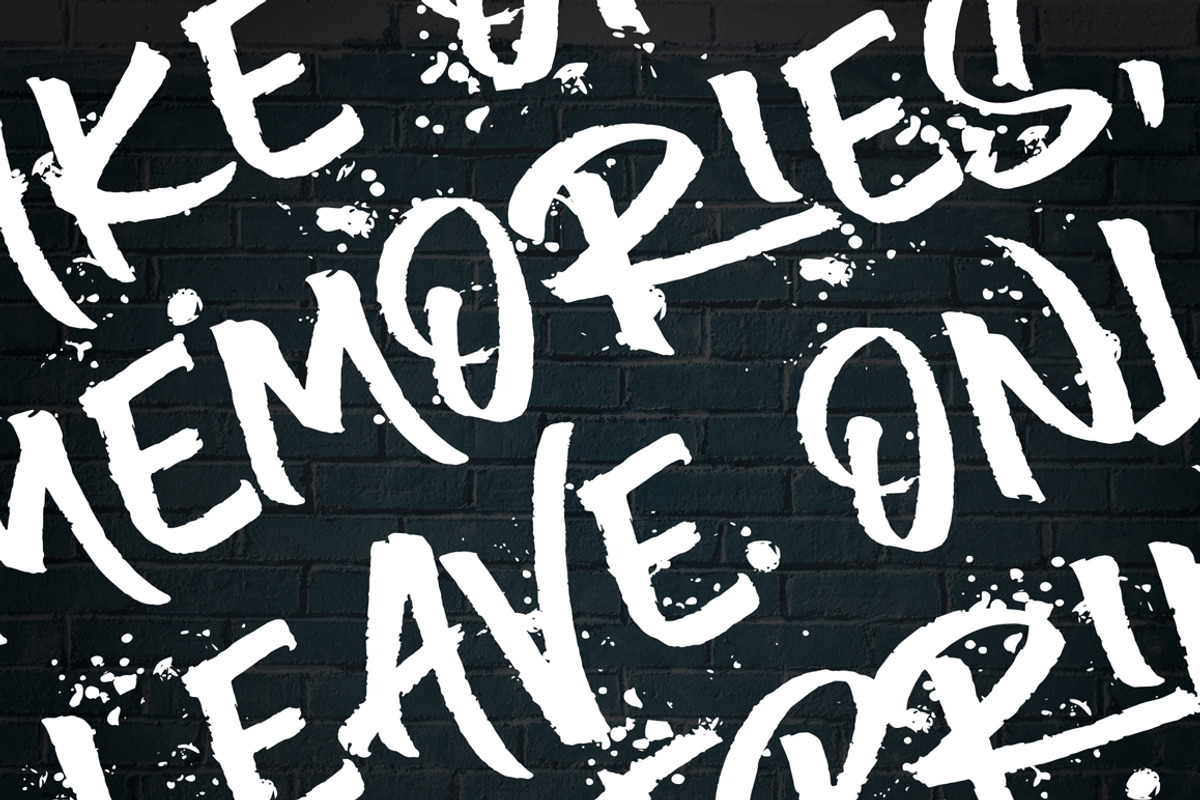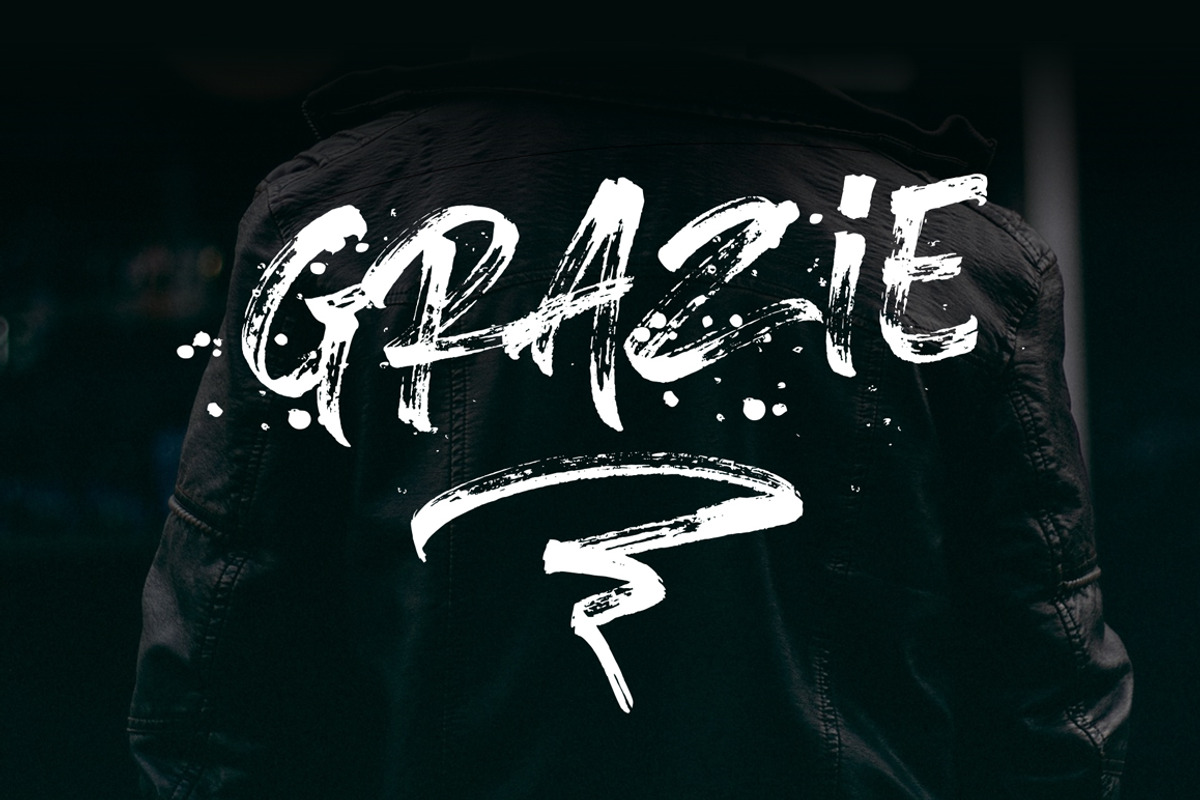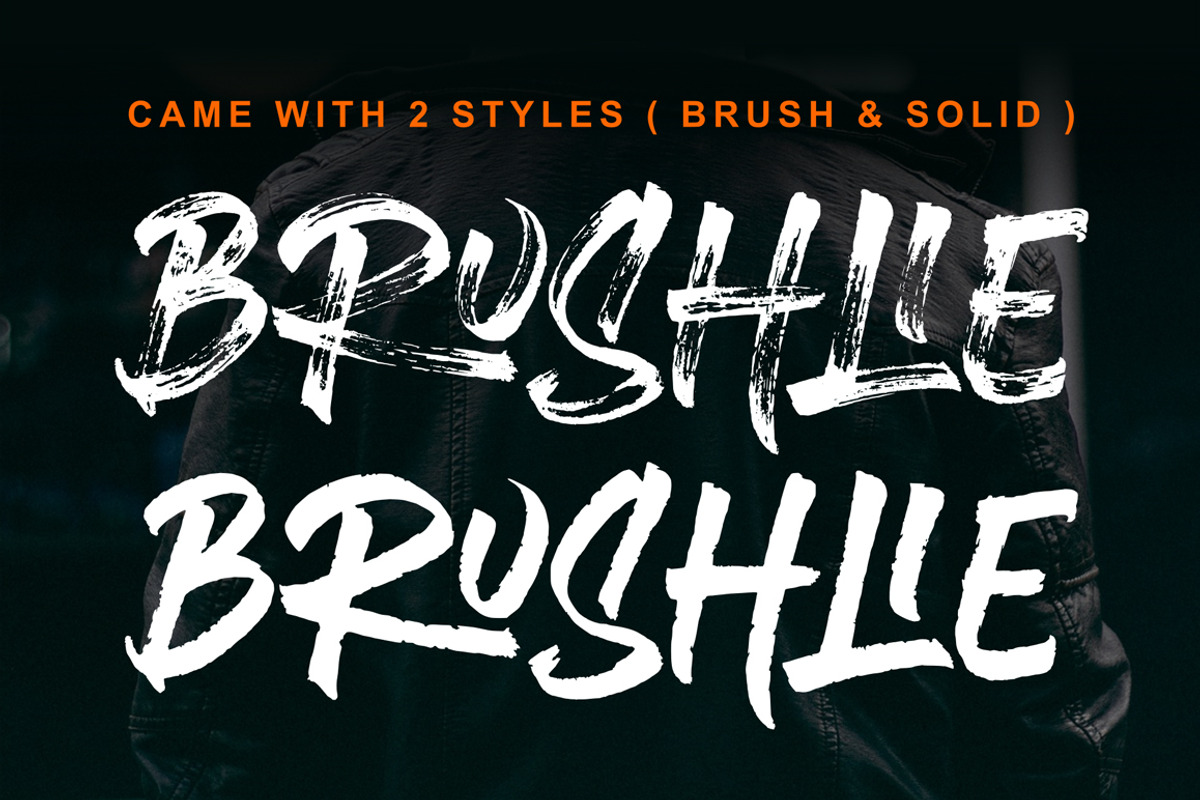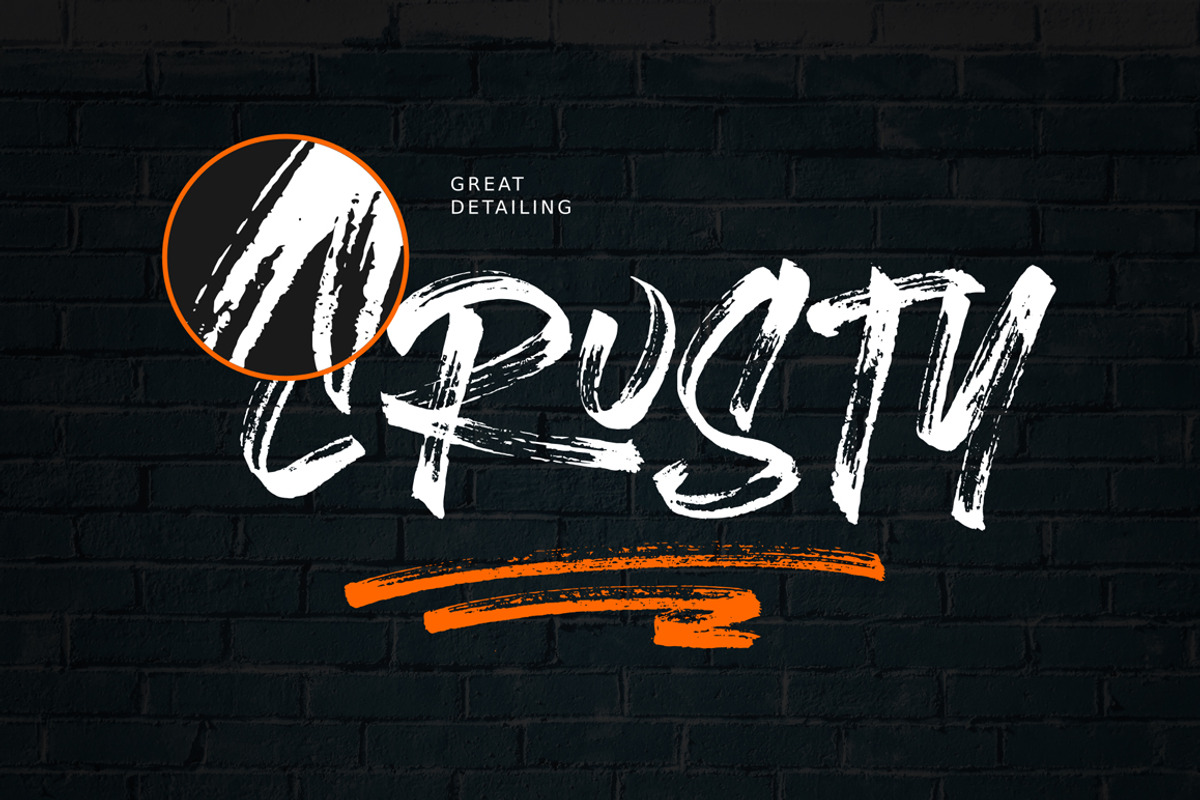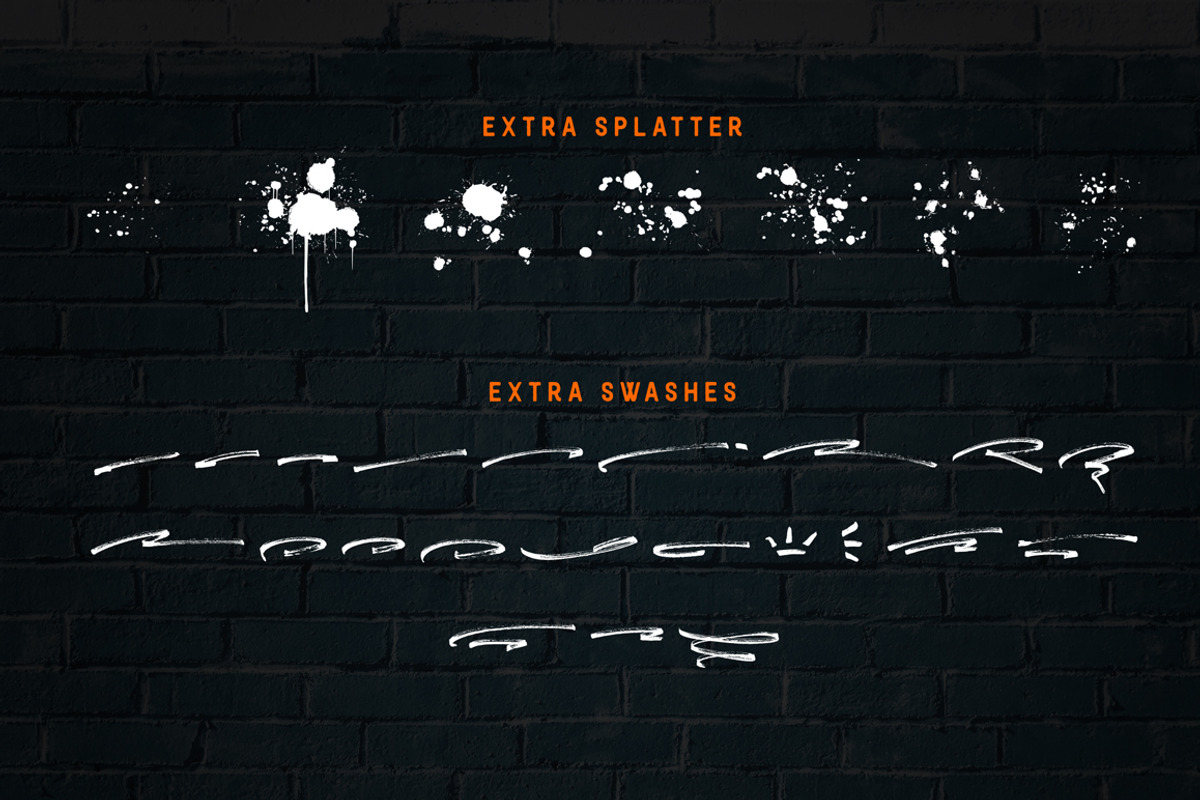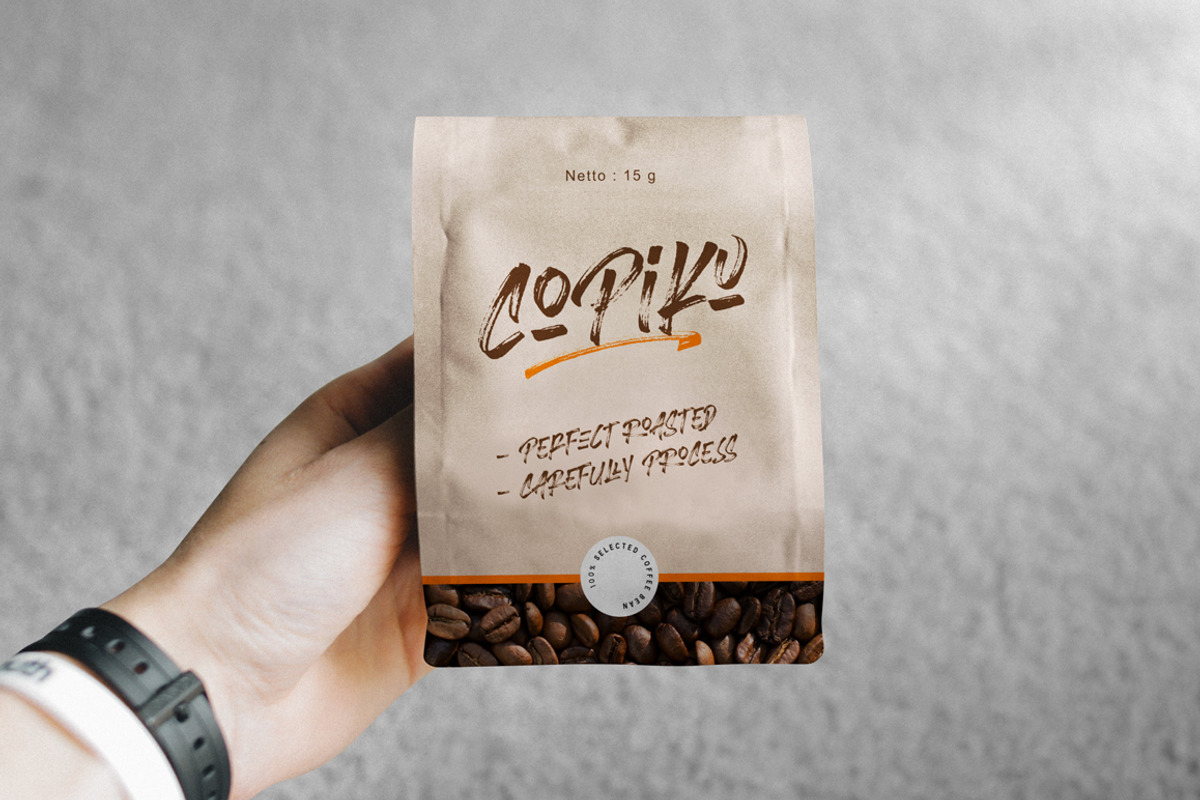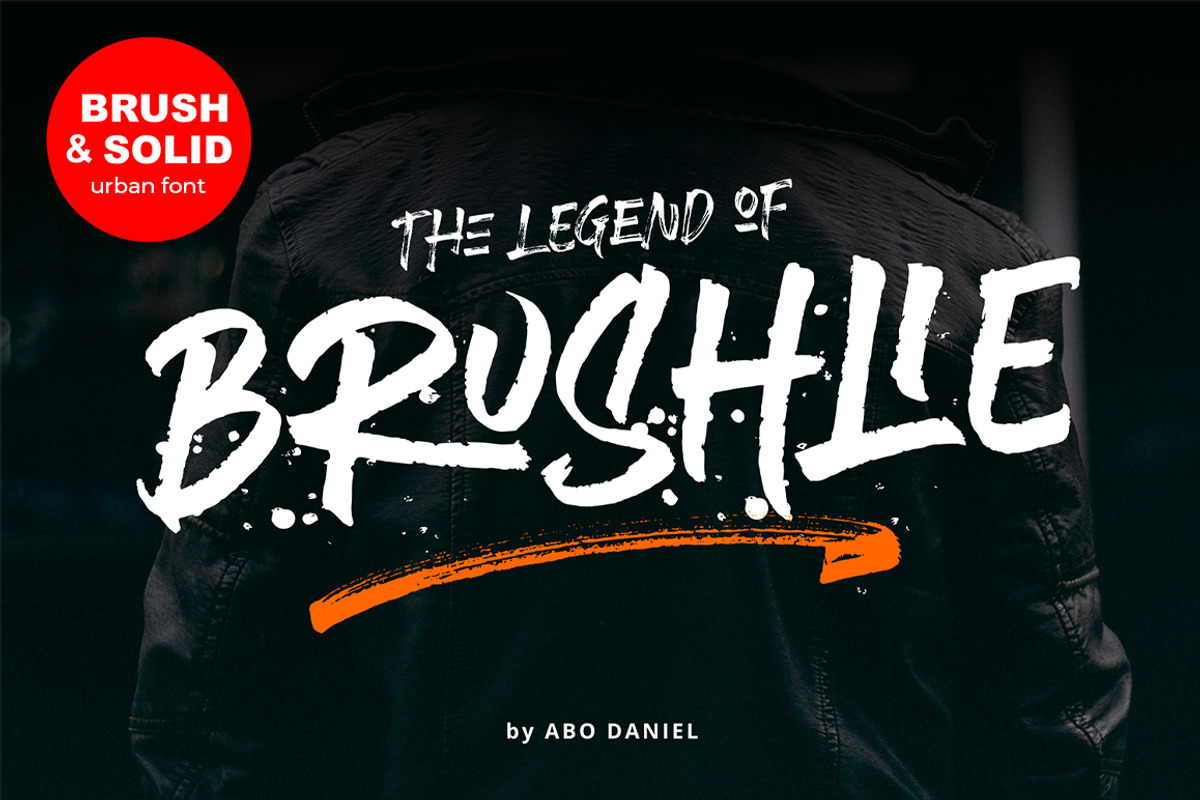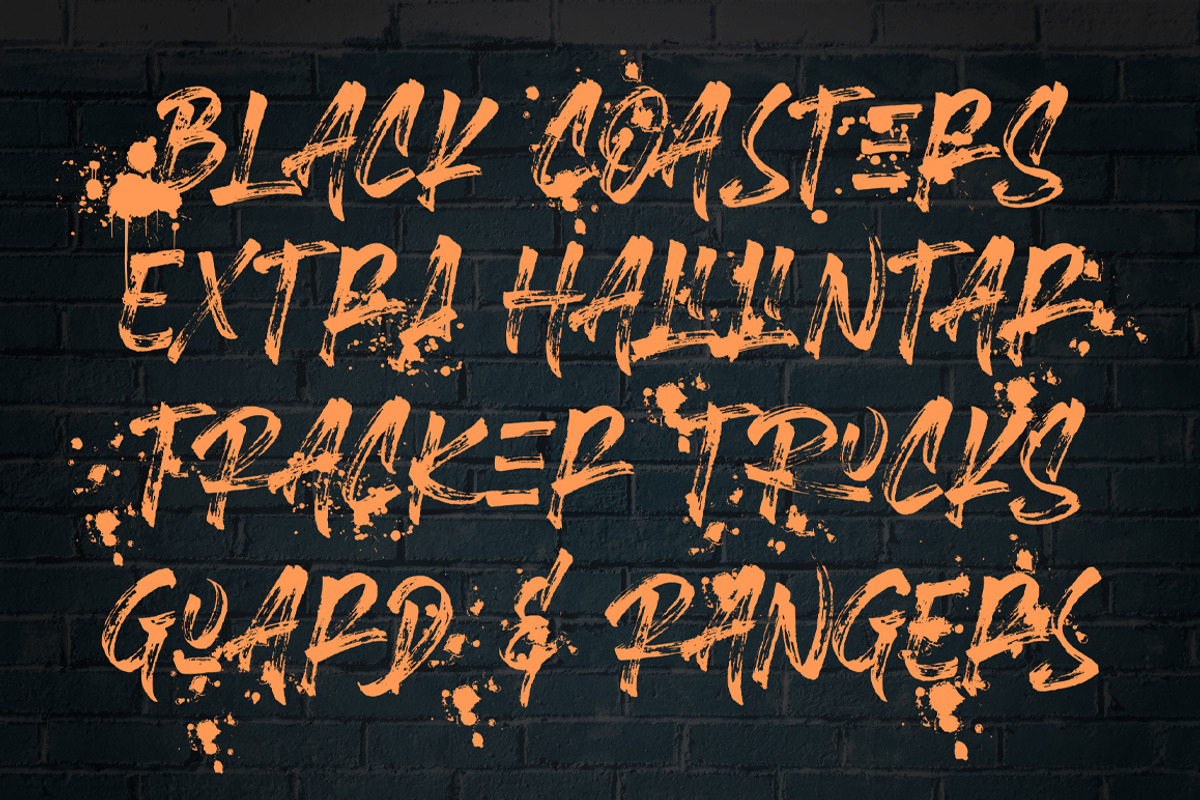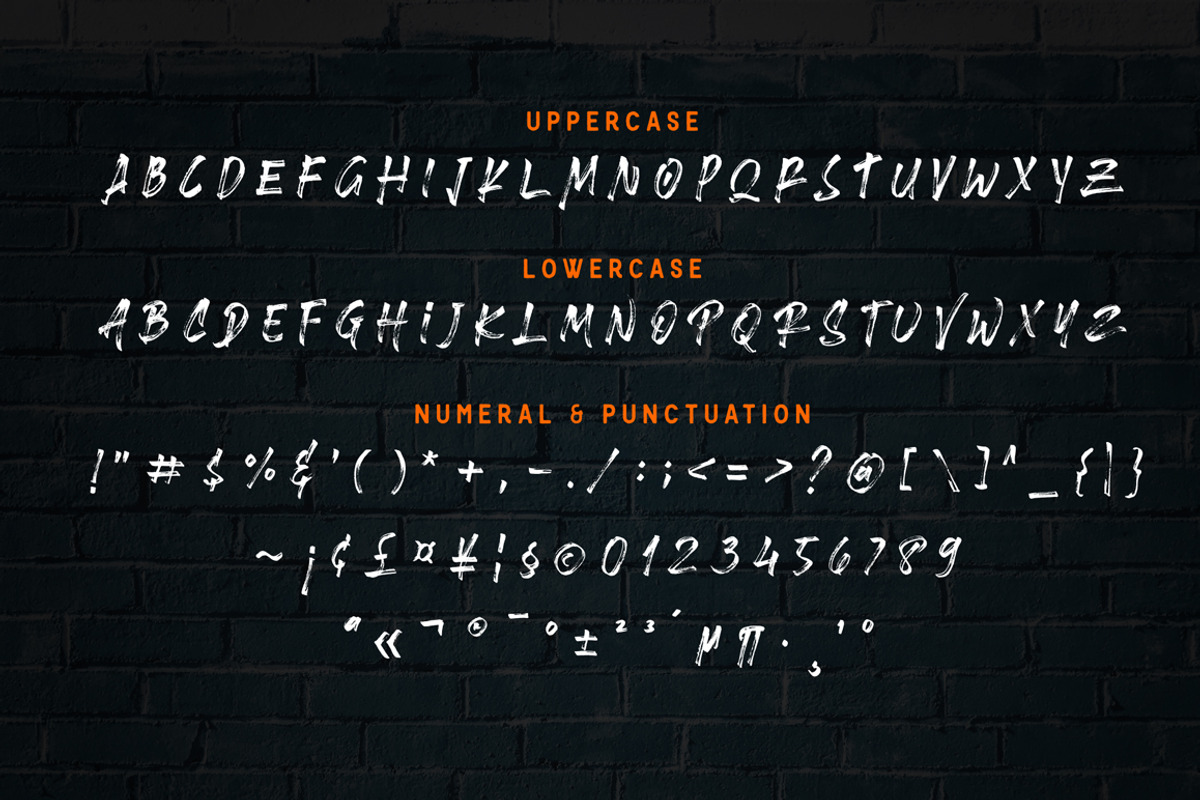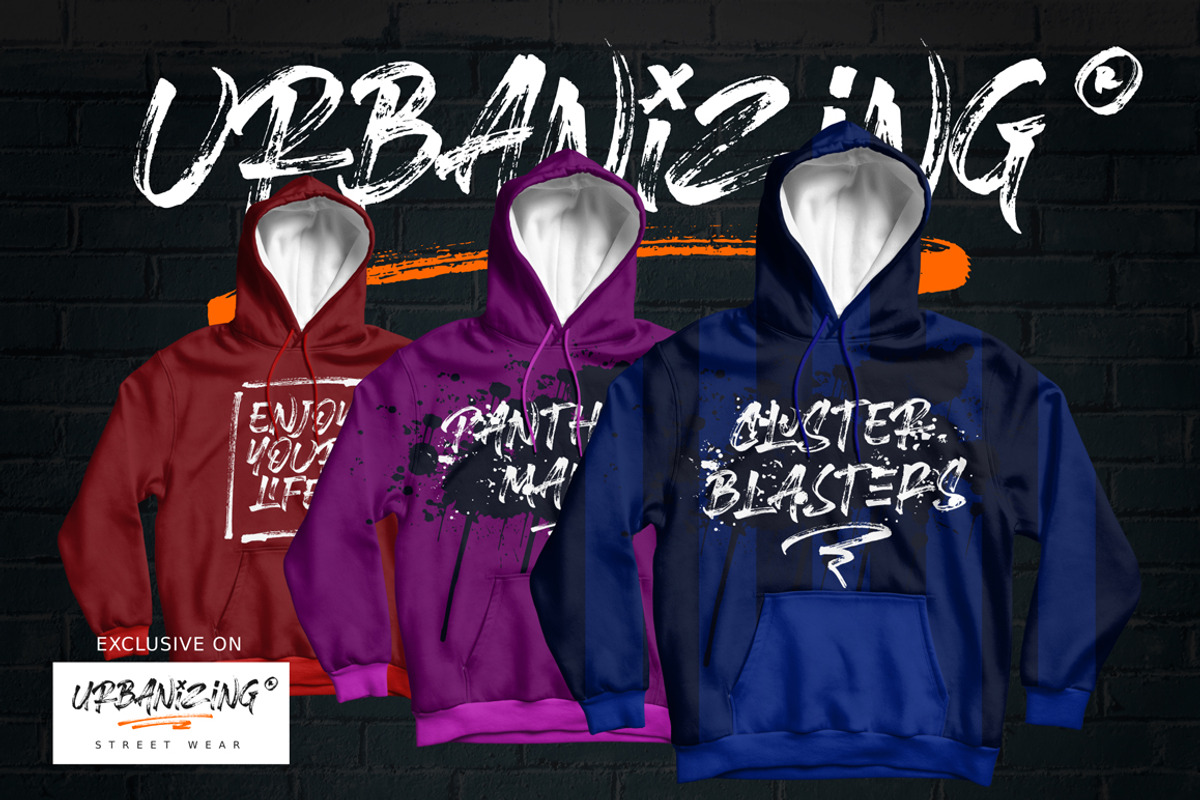
Brushlie
BRUSHLIE - urban typeface -
This font is made with a real brush.
Brushlie is ideal for logos, apparel, quotes, product packaging, or anything which needs a typographic with natural brush taste.
Brushlie: standard font
Brushlie Swash: extra swashes and splatter make Brushlie perfectly.
Alternate & Ligature
Even though Brushlie is an uppercase font, the lowercase characters will give an alternate for uppercase characters.